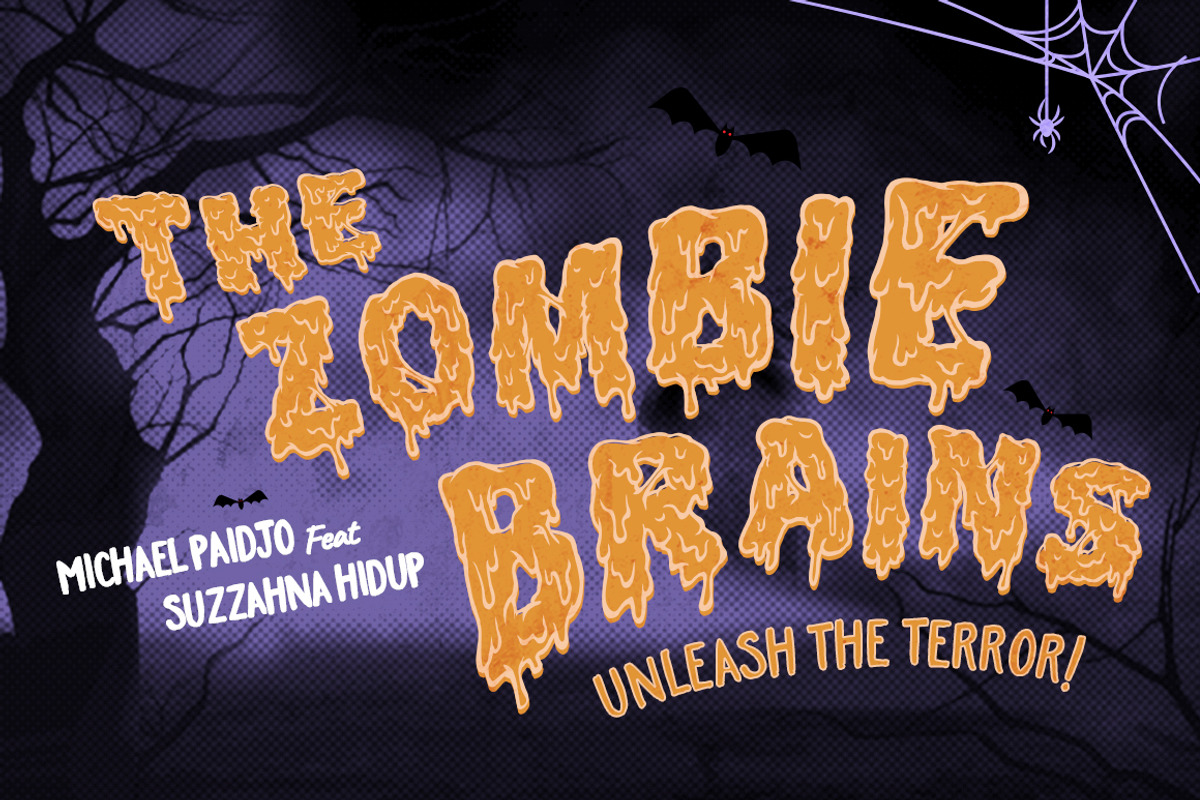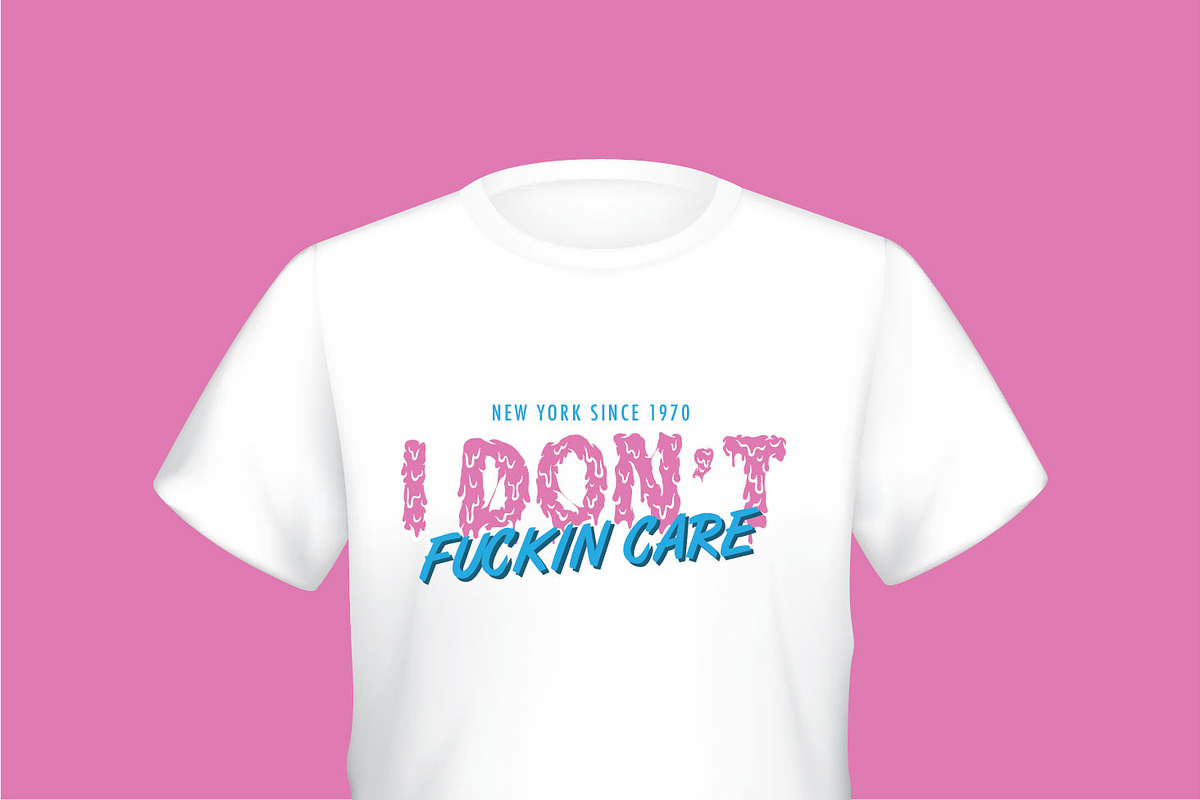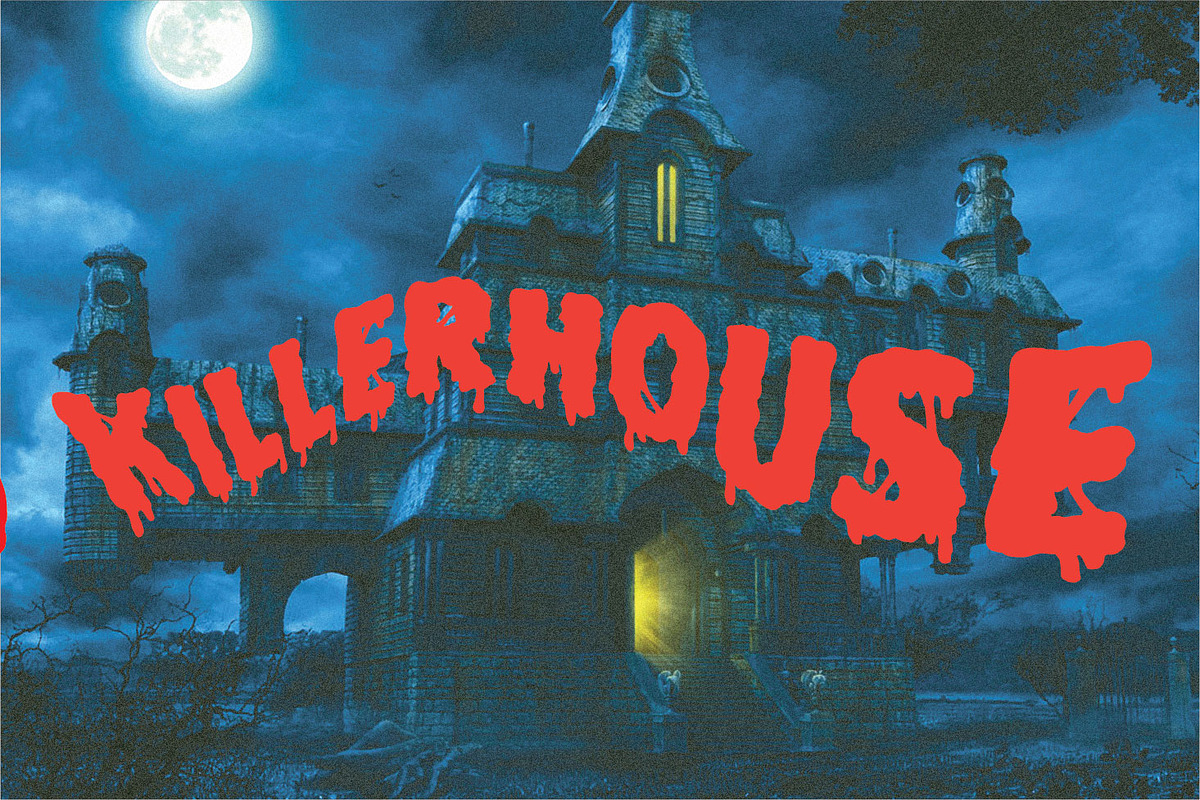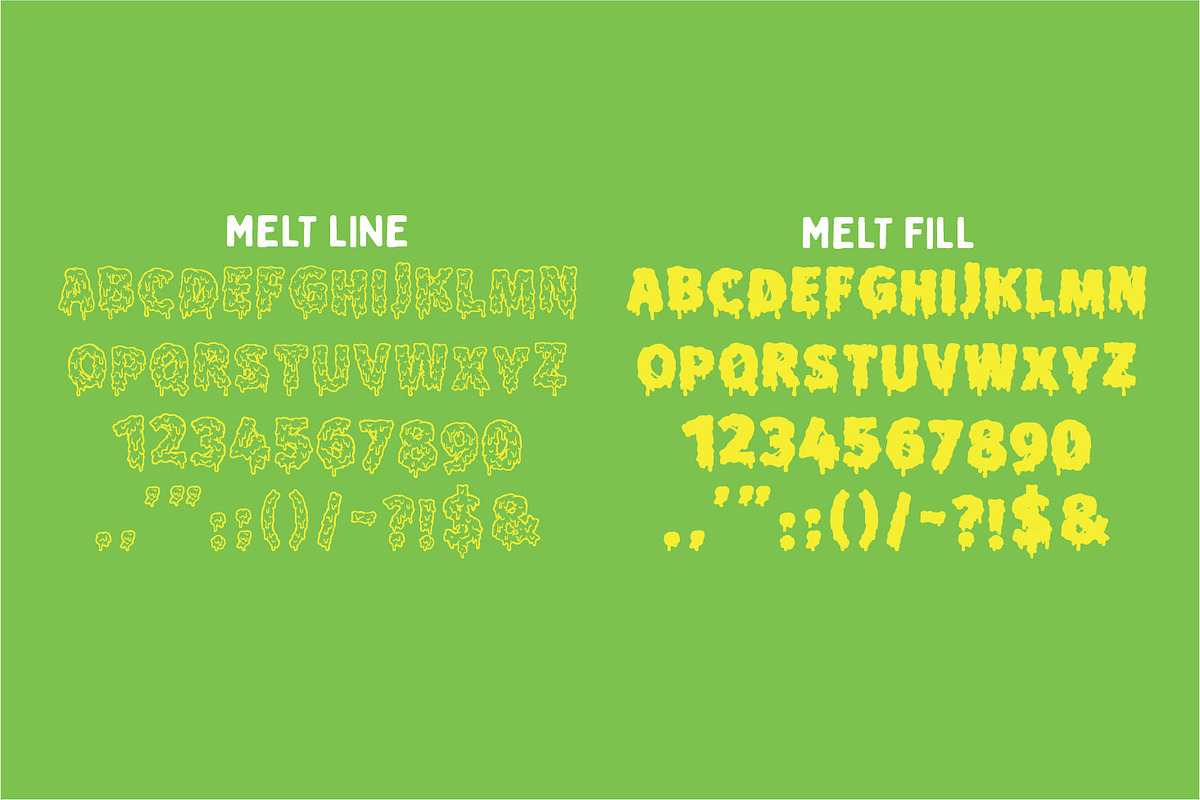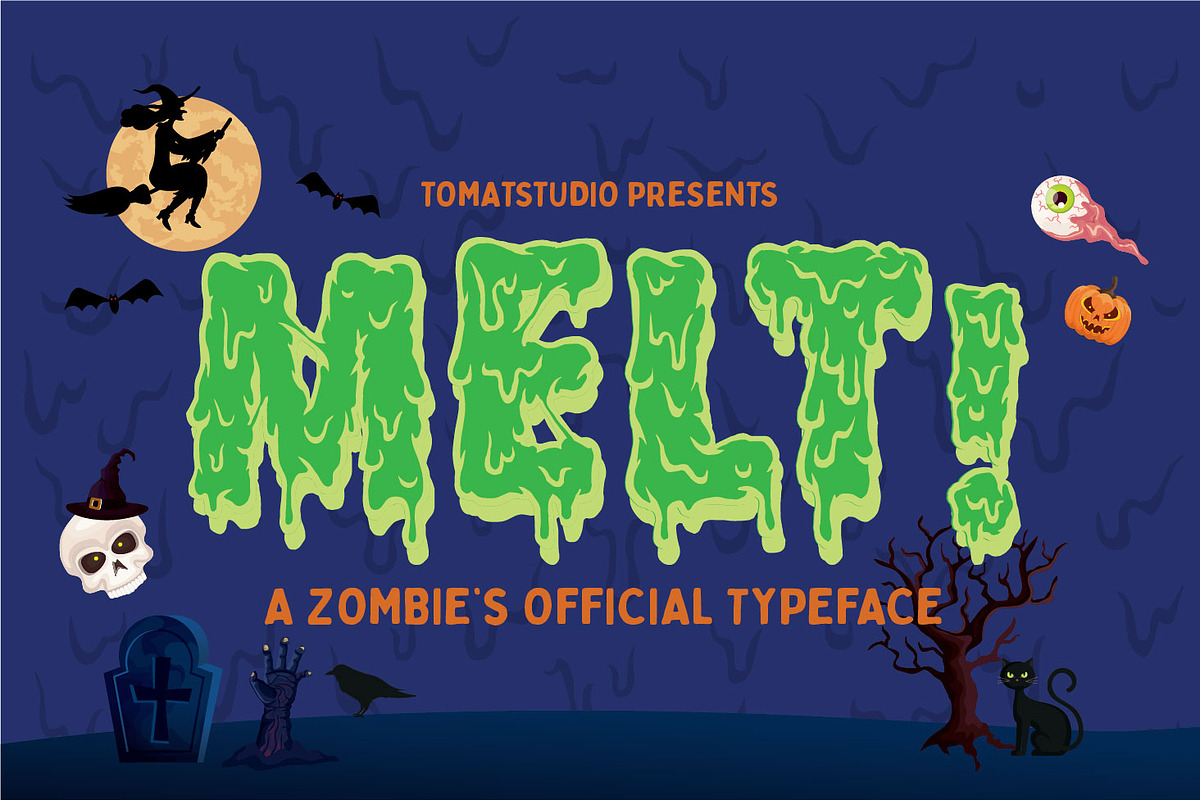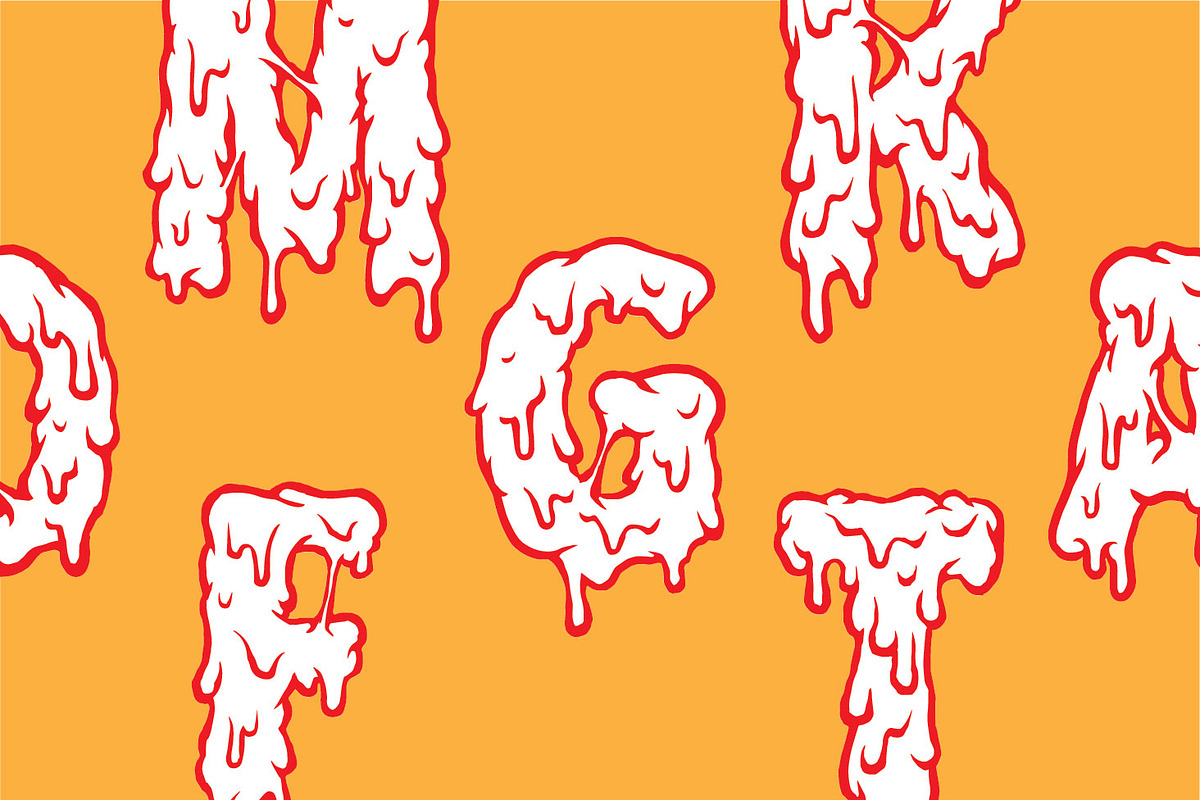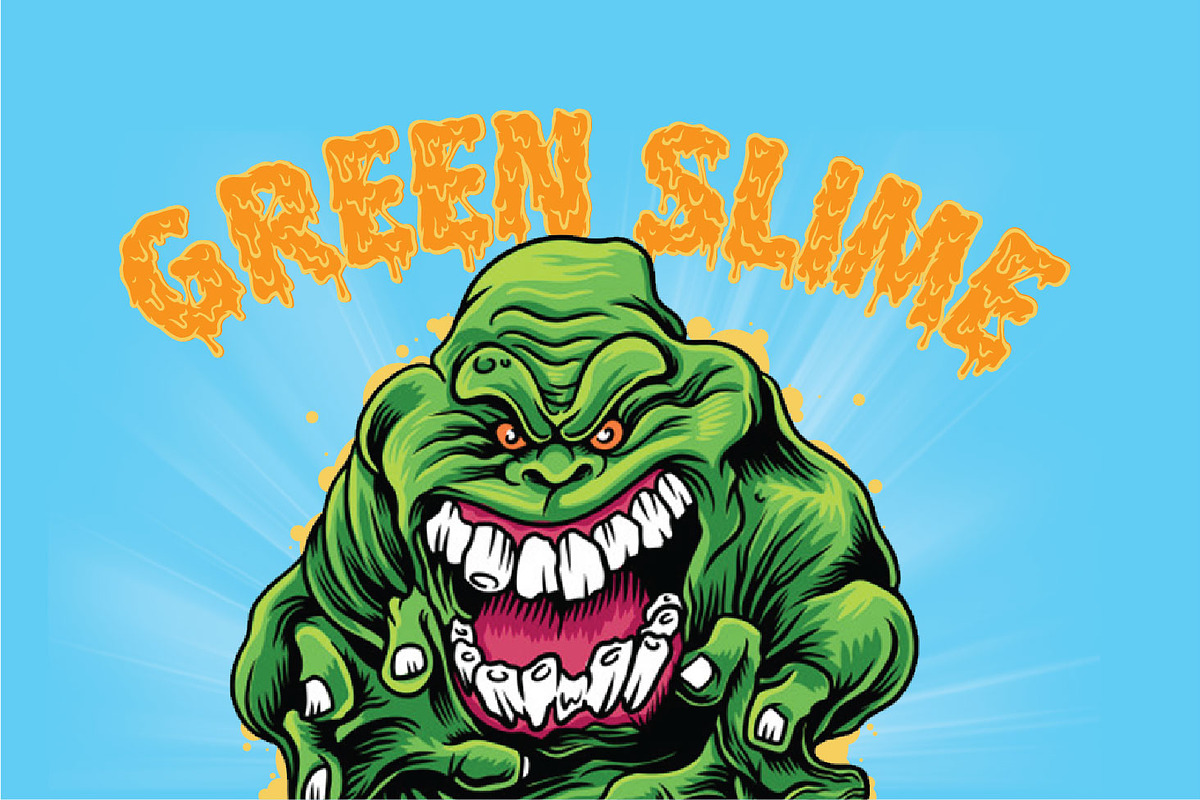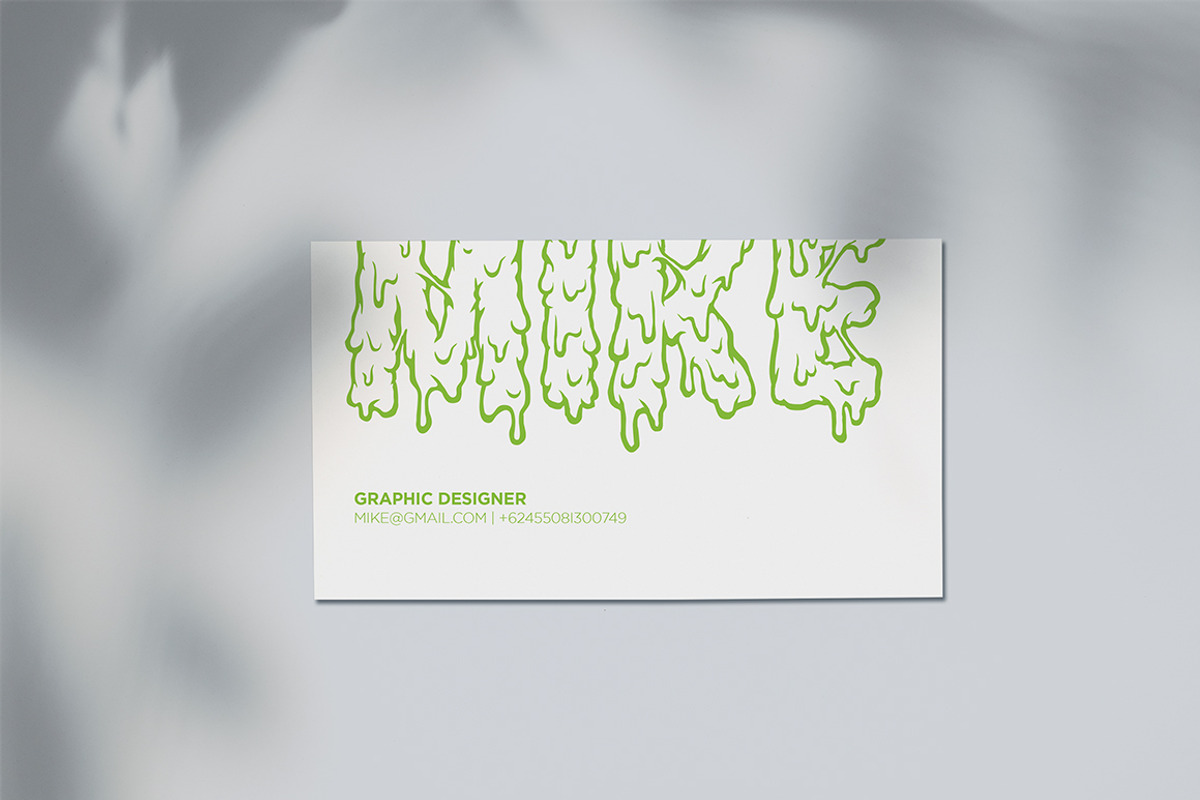
Halloween Zombie Fonts | Melt!
Do you looking for best mud, slime, dripping, melting fonts for your design? this is the answer!
Melt font is created with freehand digital drawing and created very detail, best for your vintage looking horror poster it also good for your design elements aswell.